Hoi An and Ho Chi Minh City
In 2019, I visited Vietnam for the first time, exploring Ha Noi, Sapa, and Ha Giang during a jam-packed week-long trip. At that time, I wasn’t very familiar with being a “tourist” in Vietnam. I preferred to arrange everything on my own, trying out new apps and so on. As a result, I fell into several tourist traps and encountered various scams.
For instance, I once booked a bus from Sapa to Ha Giang through an app that offered different types of bus and van services. I was sure I selected the “Bus” option, not the “Van.” However, something went wrong during the booking process, and we ended up with a van. It wasn’t even a direct service but a local communal van that stopped whenever passengers requested.
Fast forward to 2024, I learned from my past experiences and managed the trip much better. This time, I booked a hotel with airport transfer services, which made traveling as a tourist much easier. In Hoi An, our homestay was centrally located, allowing us to explore the area on foot.
In Ho Chi Minh City, getting around was a breeze thanks to “Grab.” I quickly fell in love with the city—the snails, the seafood, the diverse cuisine, and the coffee made me feel right at home. The city’s vibe reminded me a lot of Bangkok.
During my first visit to Vietnam in 2019, I was overwhelmed by stress and uncertainty, which kept me from fully appreciating the beauty of the northern cities. However, during my second visit, the typefaces and signage really caught my eye.
This trip was much more organized, and I realized how much I adore the vibrancy of Vietnamese Latin script. Its informal style feels so full of life. This is when it really hit me that I was on the opposite side of the world, far from the rigid sans-serif norms I’m used to. Here are some snippets of signage from Hoi An and Ho Chi Minh City.
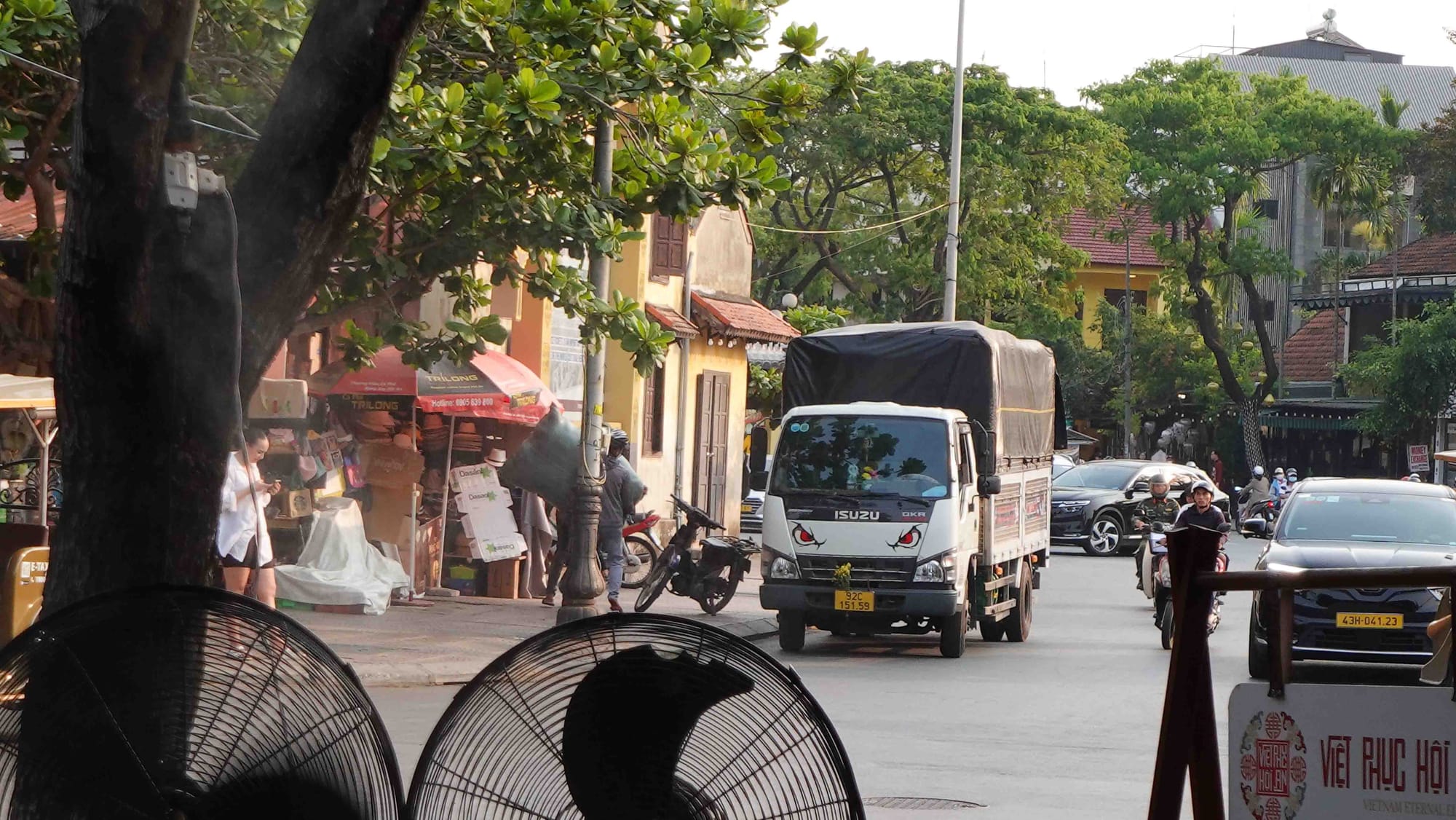
The are so many expressive letterings I found during those three days strolling in town. I took most of the photos here in Hoi An, our first stop, and we spent two nights there.
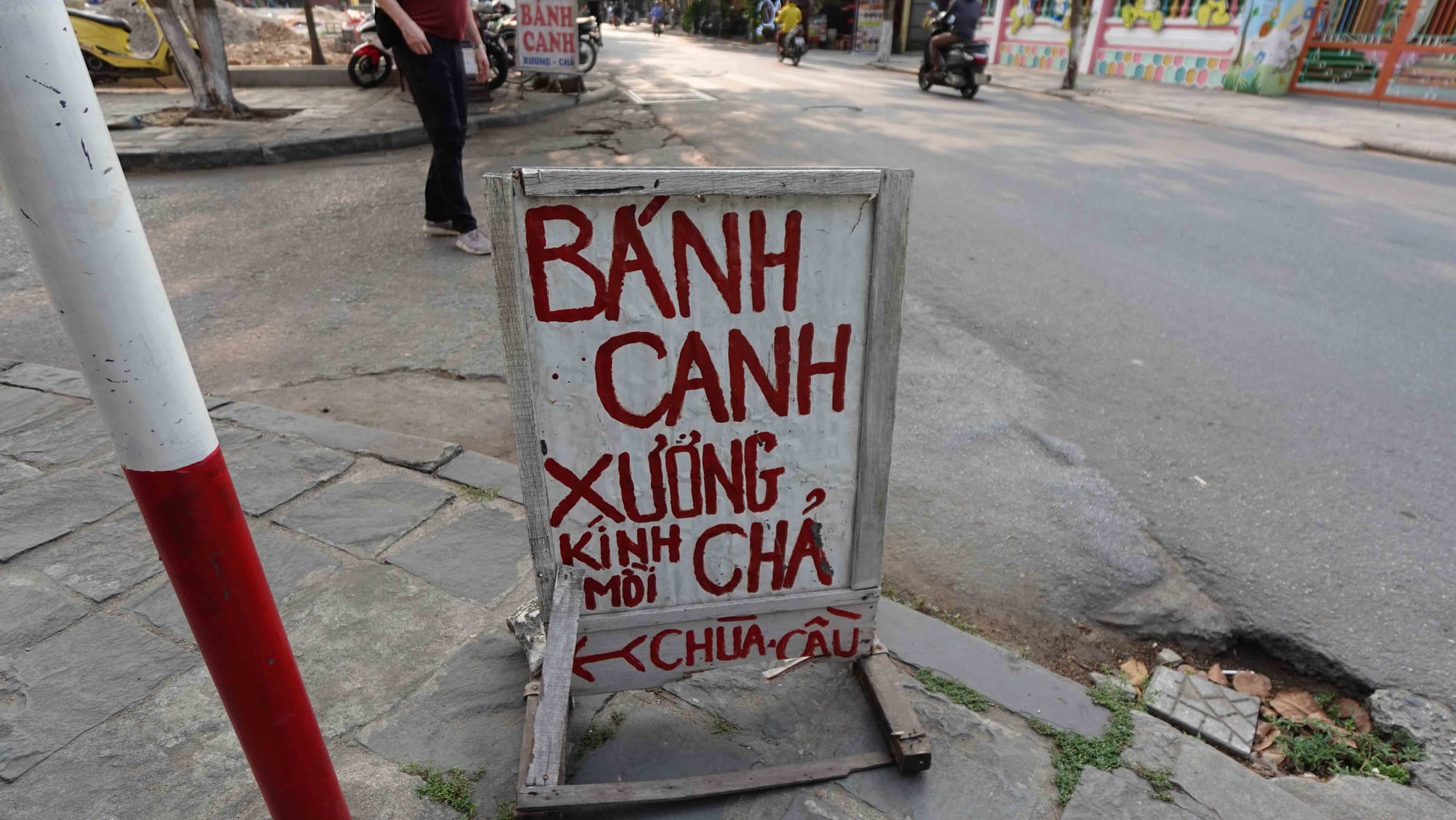
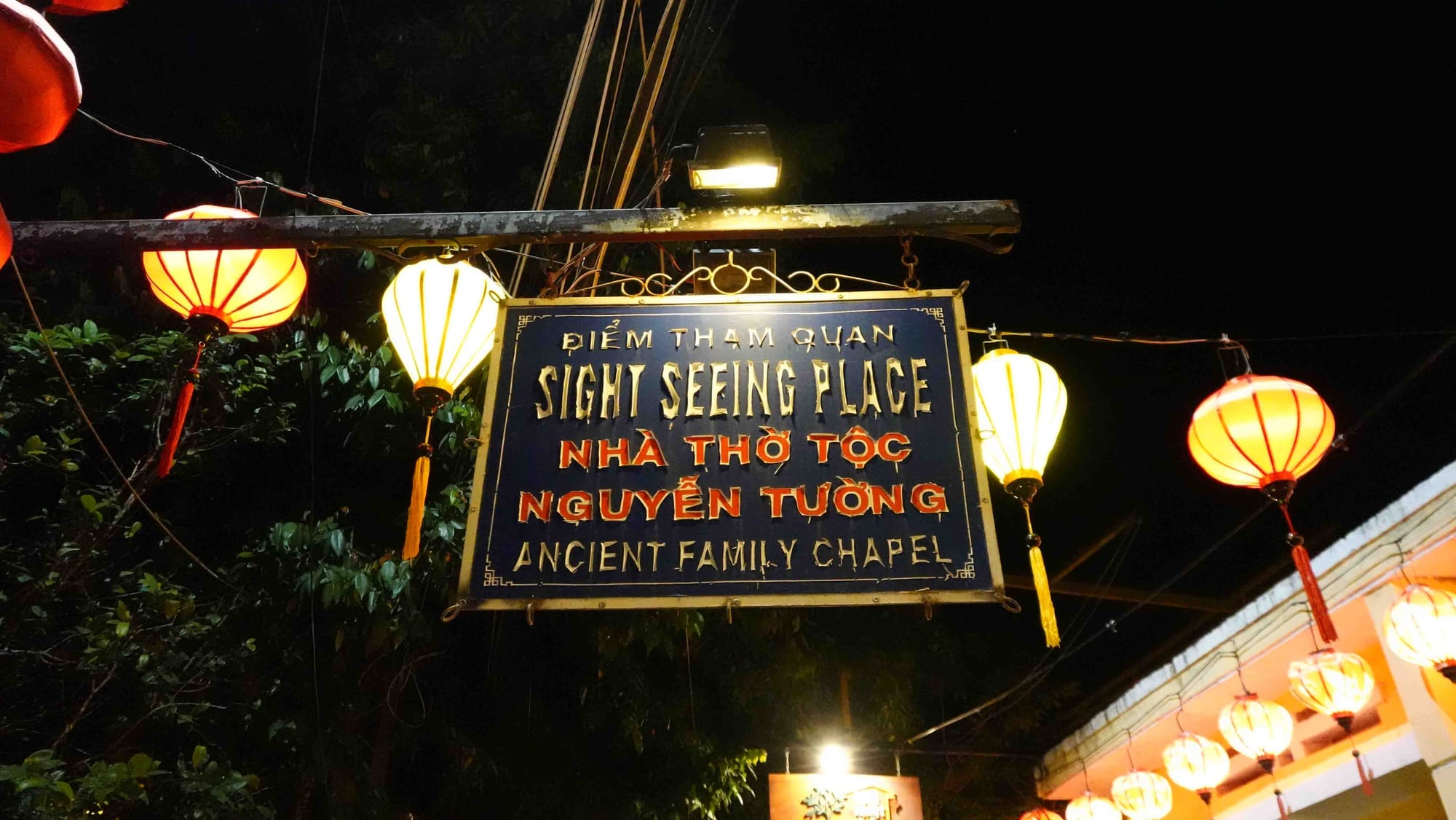
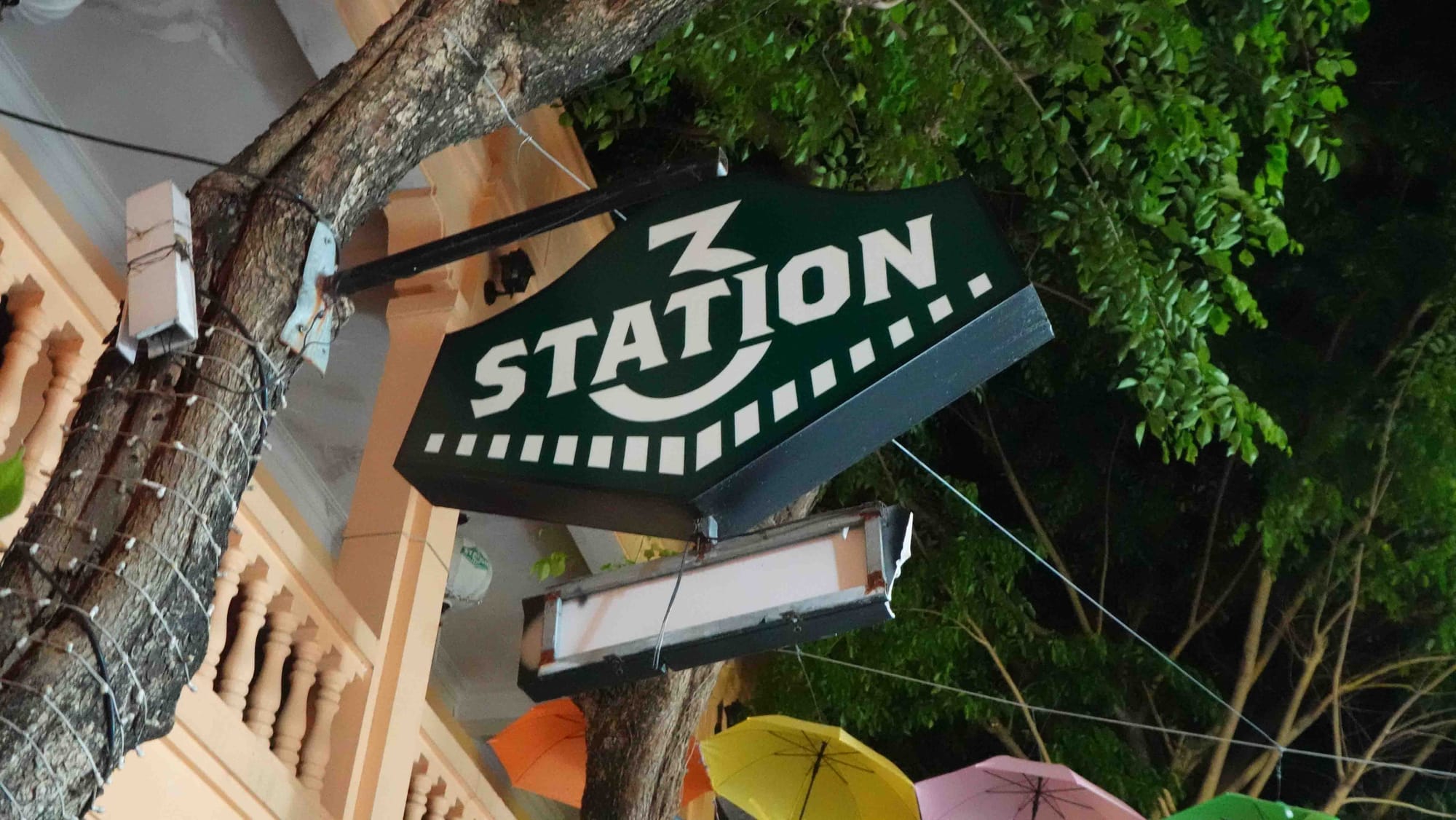
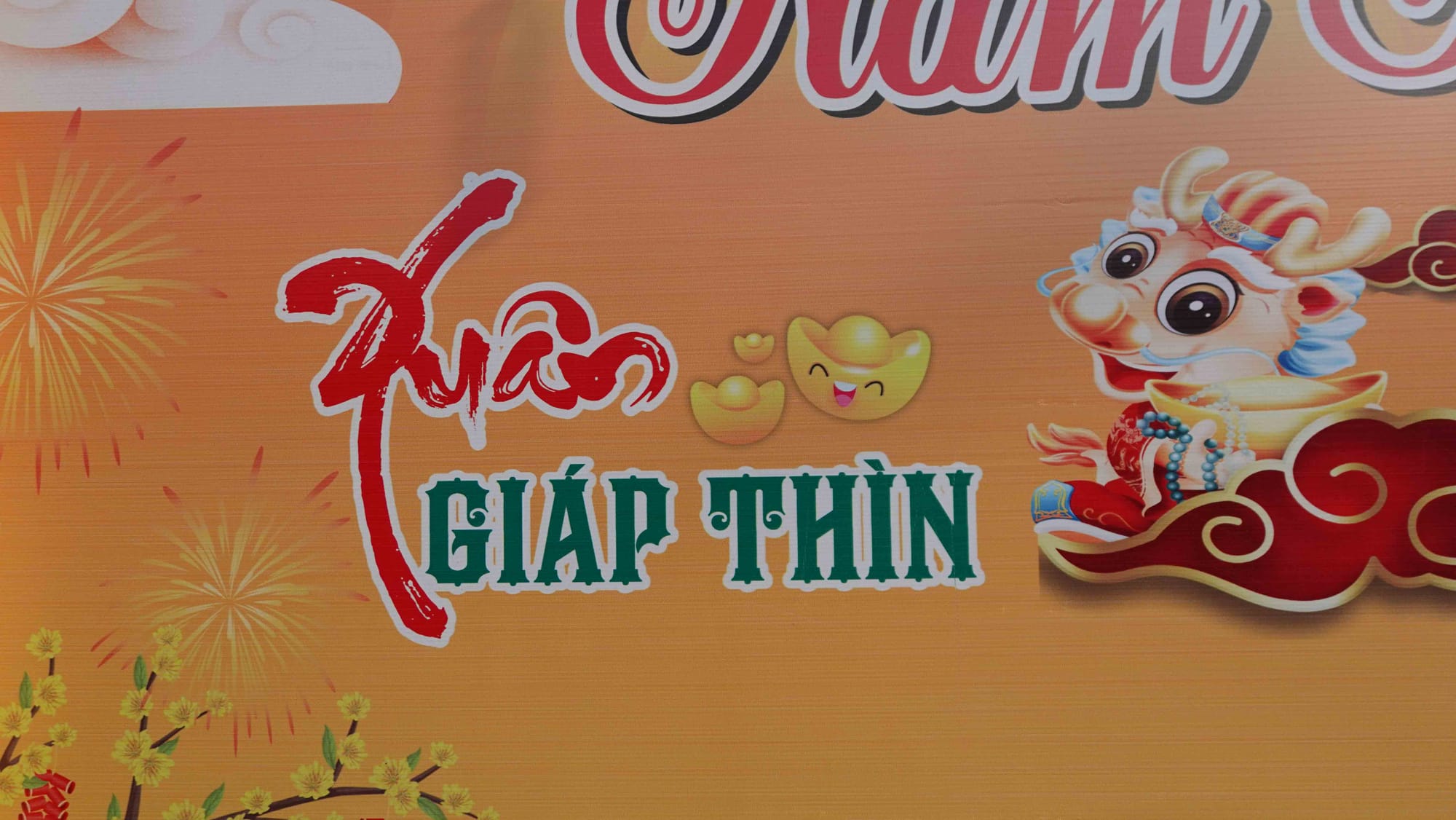
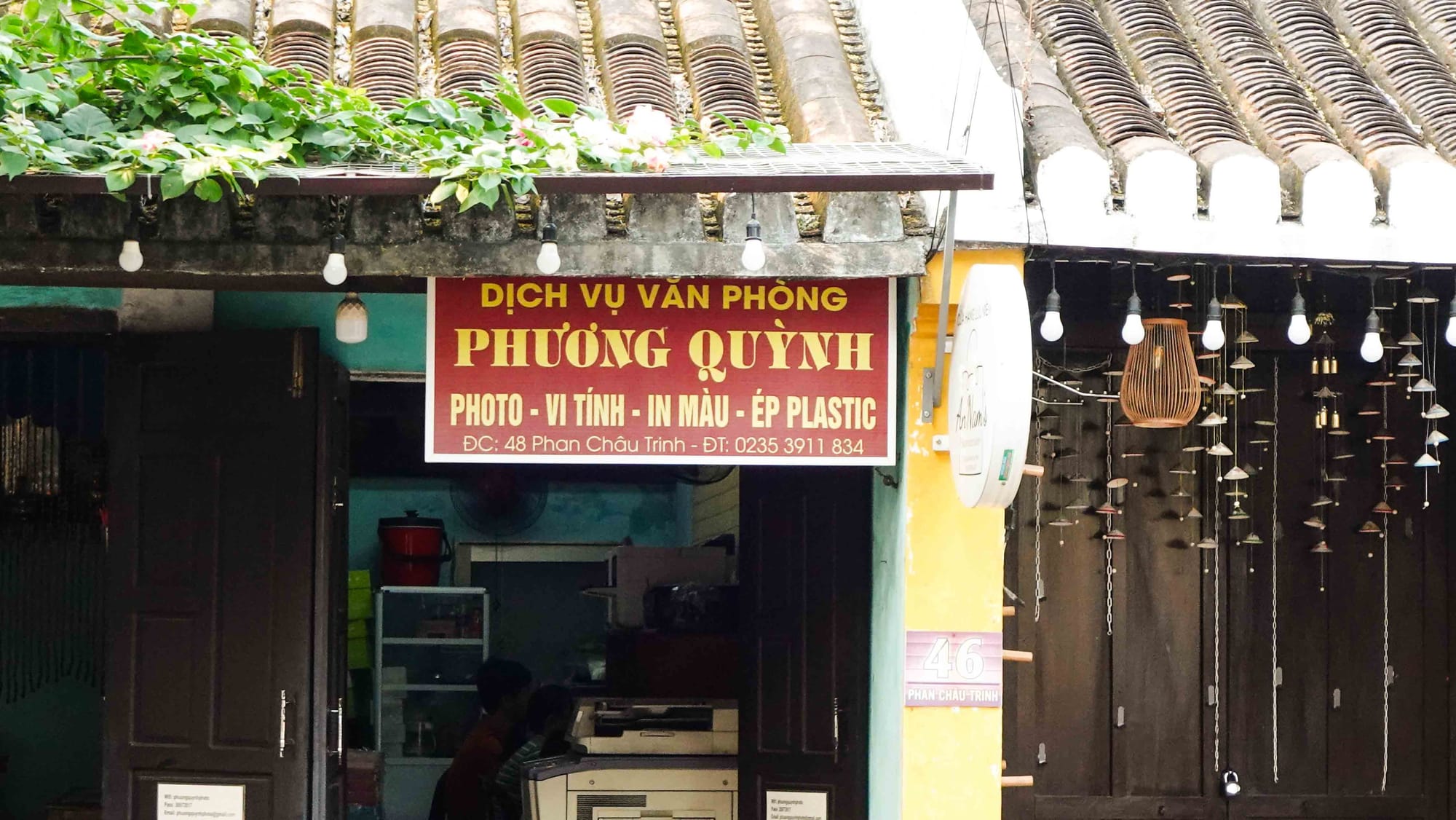
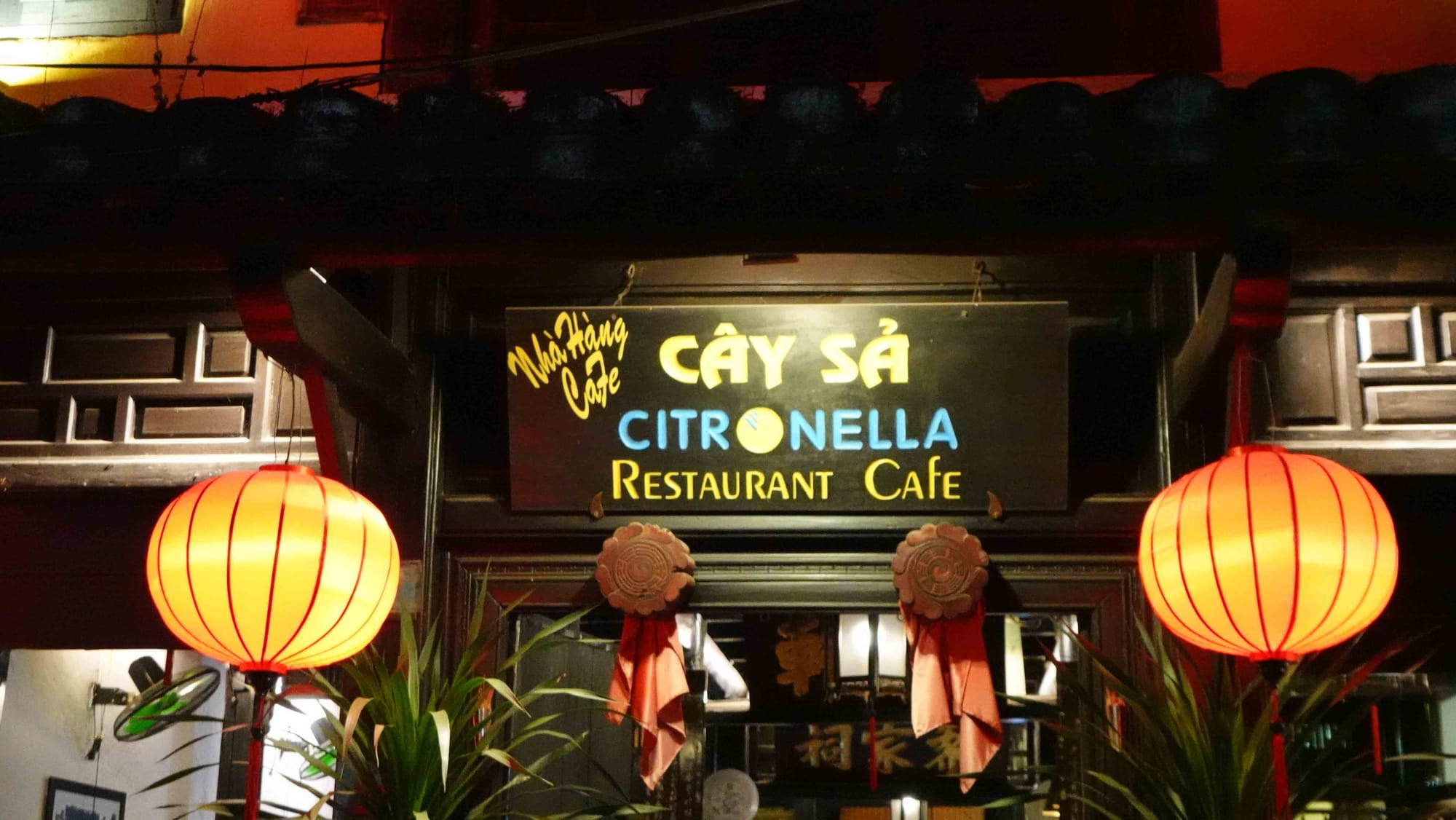
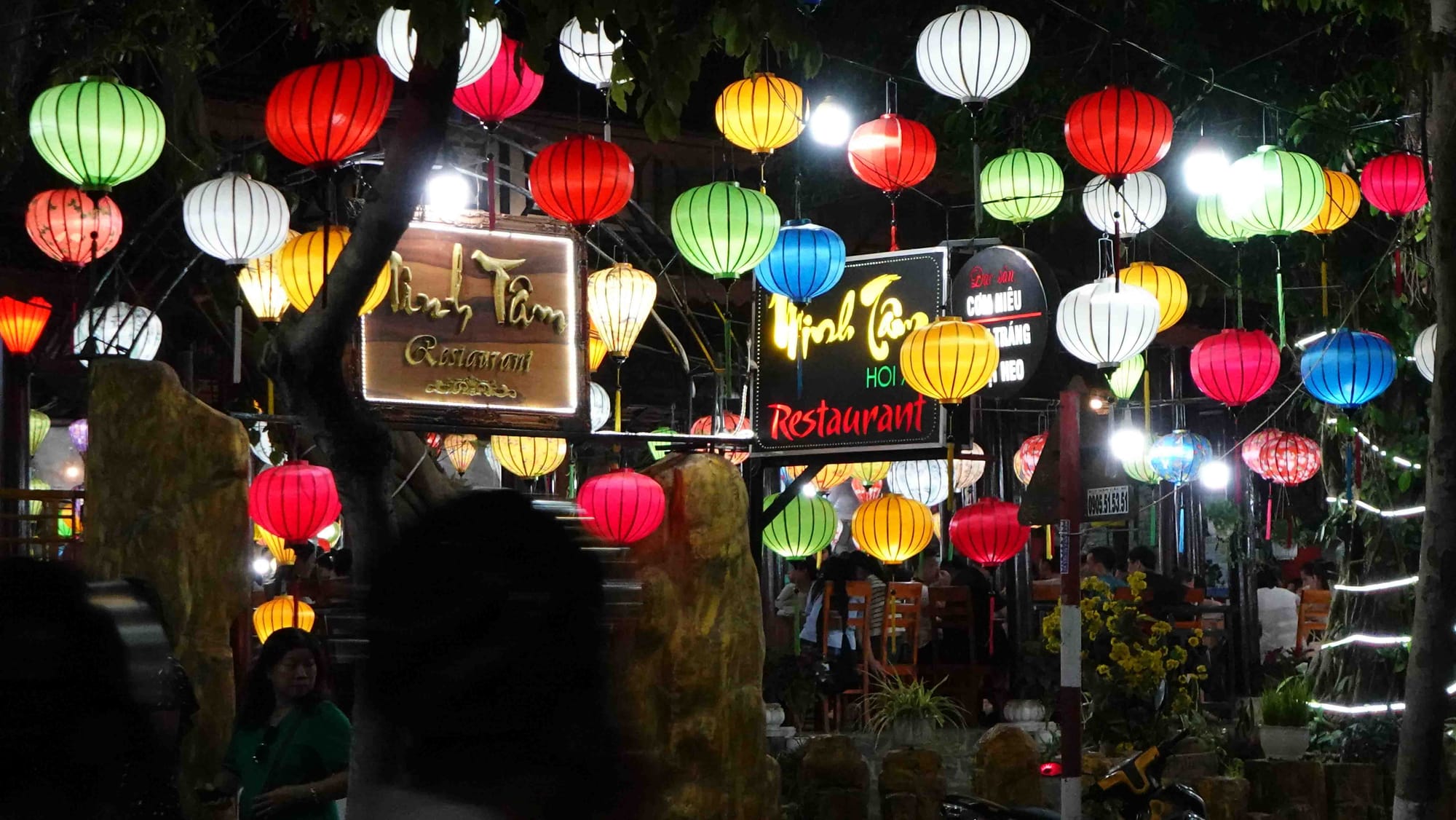
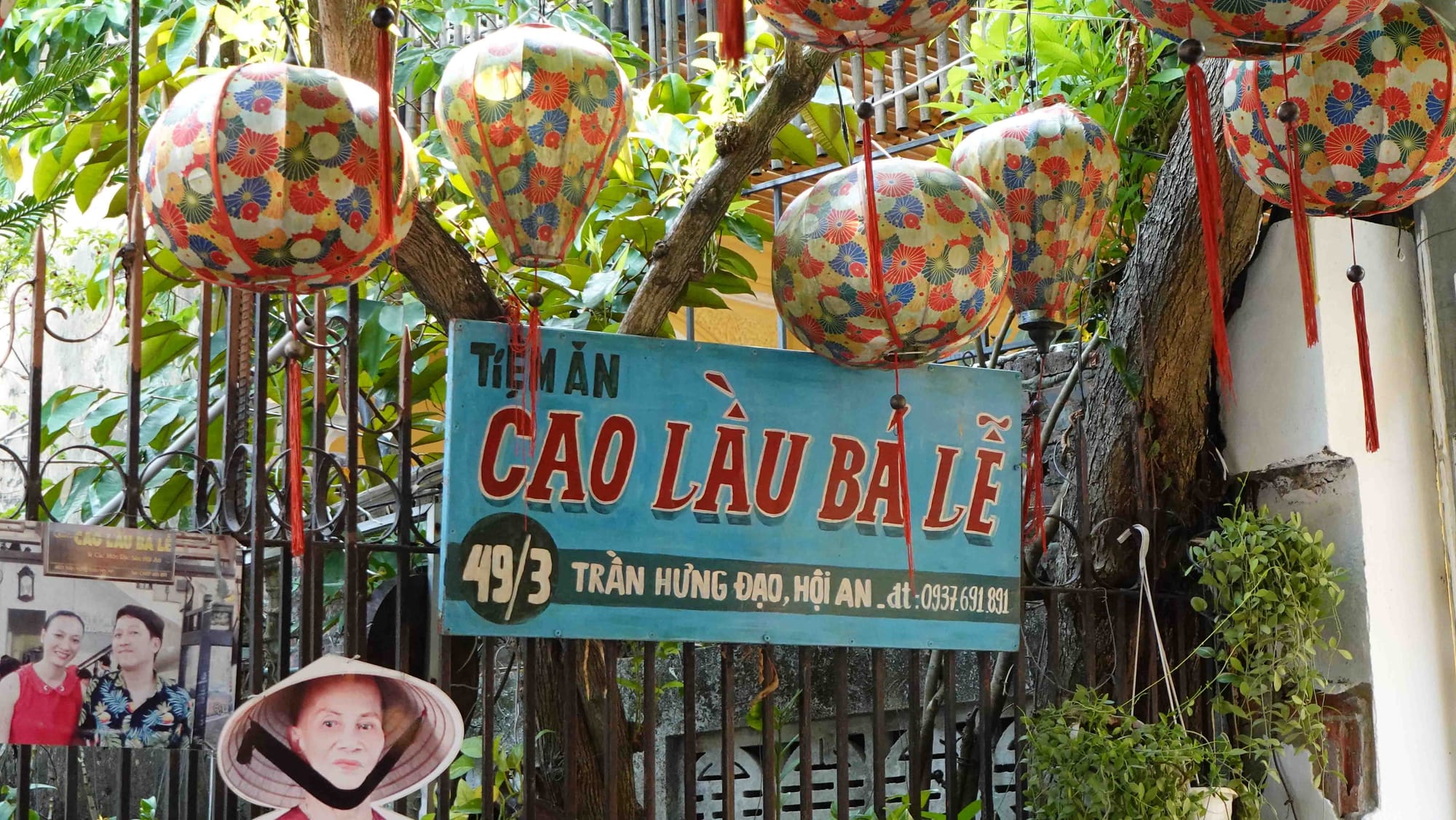
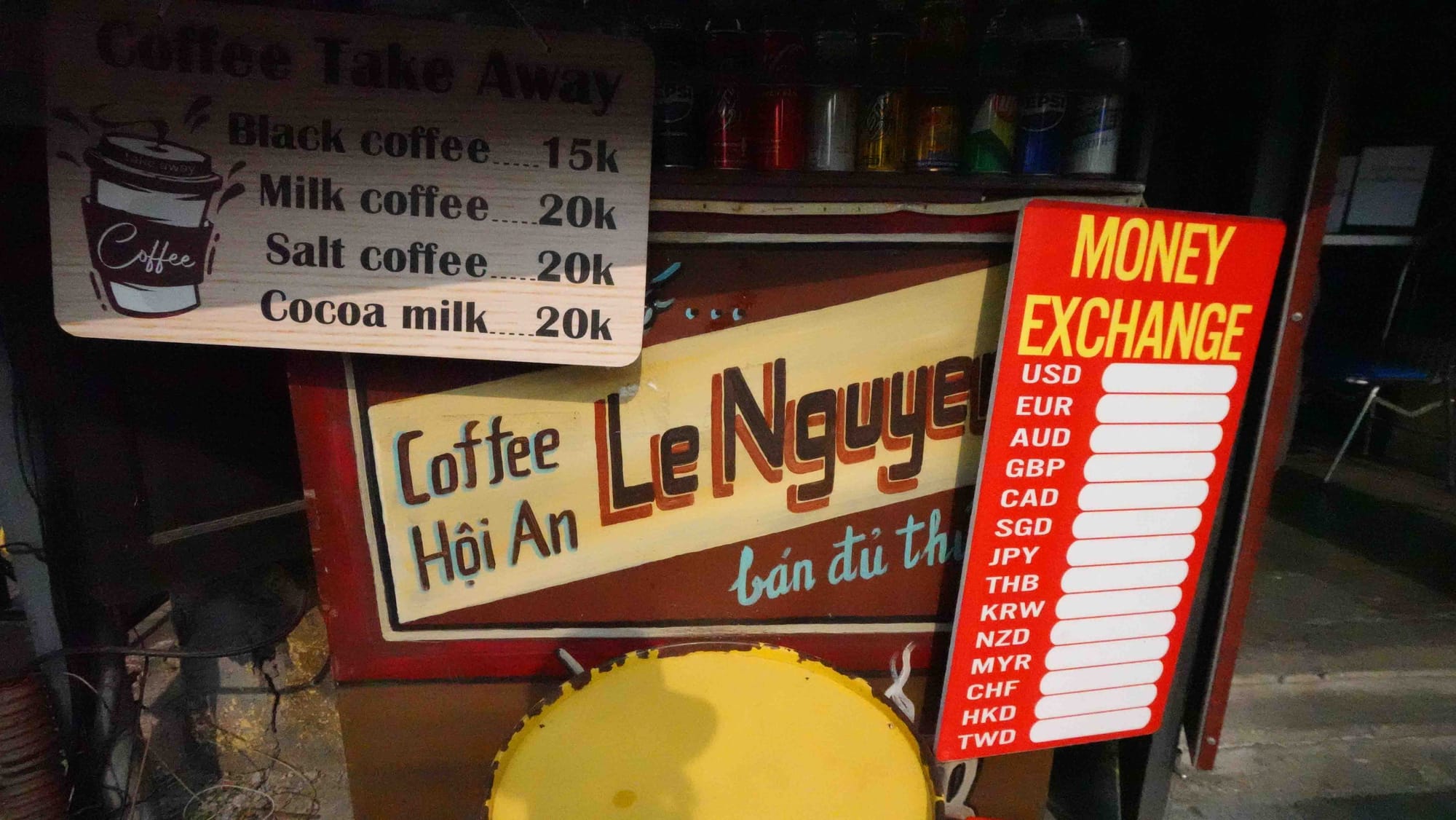
From Hoi An, around the downtown area
While we were walking around, I found another fascinating signage. The image below shows both sides of that signage. They’re basically talking about the same café but in a different lettering style.
I also love their color combination
Another area to spot amazing letters is on the boat!
I’m not sure if that phrase can apply everywhere, but at least in Thailand, Vietnam, and sometimes in the Netherlands, they are frequently spotted!
Other letters on the boat
Our second stop was Ho Chi Minh City, we spent another a few night there. I spent most of my visit exploring Luu Chu, Vietnam's Graphic Design, and Type Archive, for already half a day! I plan to create a dedicated post featuring photos and stories from that visit. I didn't have a chance to take so many photos; it's a busy city, and we didn't walk around that much. But here are some:
Lettering in a circle! I love to see how people deal with their diacritics.
In summary, apart from those lettering, I love Vietnamese coffee; salt coffee and coconut coffee are the best. If you are not a spicy type or can handle only a little spicy like me, Vietnamese foods will definitely be perfect! I will never be bored there. And that's about it from this trip!